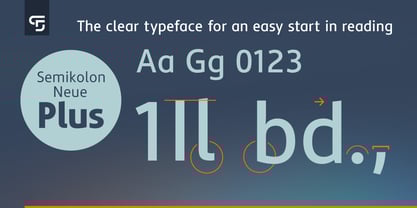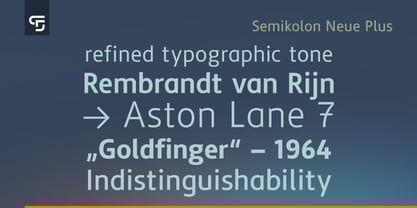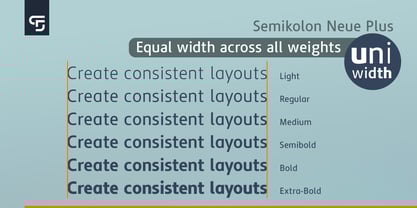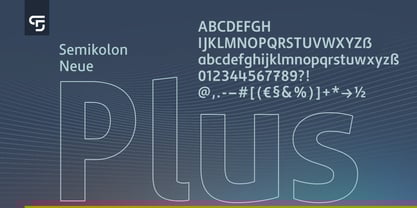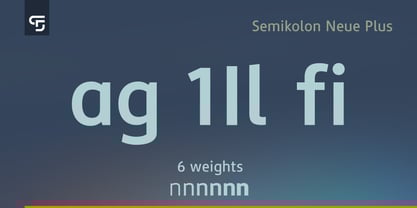
Semikolon Neue Plus
The Semikolon Neue Plus Font Family was designed by Bernd Hülsmann and published by Semikolon Fonts. Semikolon Neue Plus contains 6 styles and family package options. More about this family
Legibility reimagined – Semikolon Neue reduces the risk of confusing similar characters and, with its clear letterforms, brings together motivation and truly accessible reading for everyone. Trusted since 2009 – expanded and refined in 2025 Semikolon Neue Plus – The clear typeface for an easy start in reading. Recommended by the German association of alphabetization and basic education, which uses it for adult education, reading magazines and teaching material. Semikolon Neue Plus is also used in learning apps and children’s books.
Designers: Bernd Hülsmann
Foundry: Semikolon Fonts
Semikolon Neue Plus
Semikolon typefaces are characterized by clearly distinguished letterforms. They were developed to minimize confusion between similar characters, thereby supporting reading motivation and the learning process. Thanks to their high legibility, Semikolon fonts are used in numerous books — including publications by Loewe Verlag — as well as in adult education centers, other educational institutions, and learning apps for all age groups. Since 2009, the German Federal Association for Literacy and Basic Education has been using Semikolon Plus, a typeface from the Semikolon family, across various media for reading materials as well as informational and teaching resources in adult education. Learners in literacy courses particularly benefit from the fonts’ excellent legibility and clearly designed letterforms. The name “Semikolon” is derived from the punctuation mark of the same name (Greek for “half colon”), which separates sentence parts with deliberate weight—reflecting the consciously differentiated and clearly separated letterforms of Semikolon typefaces.